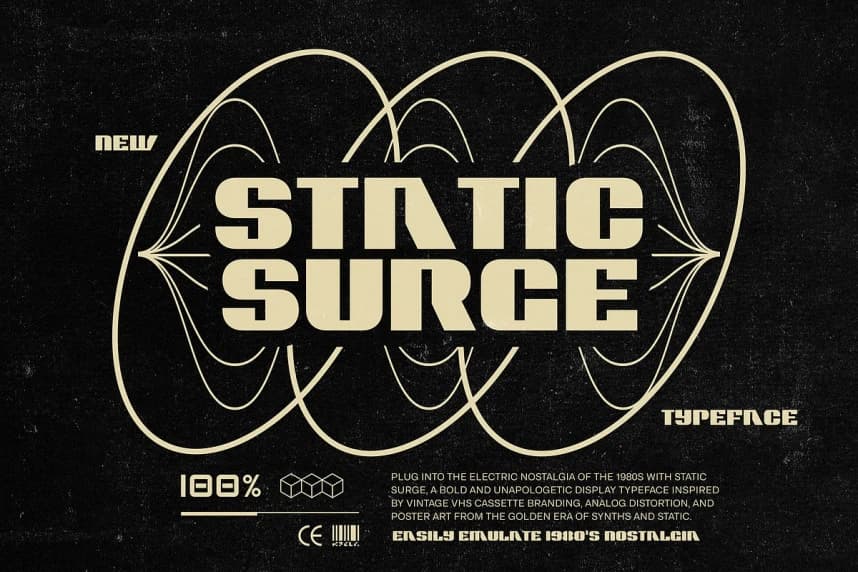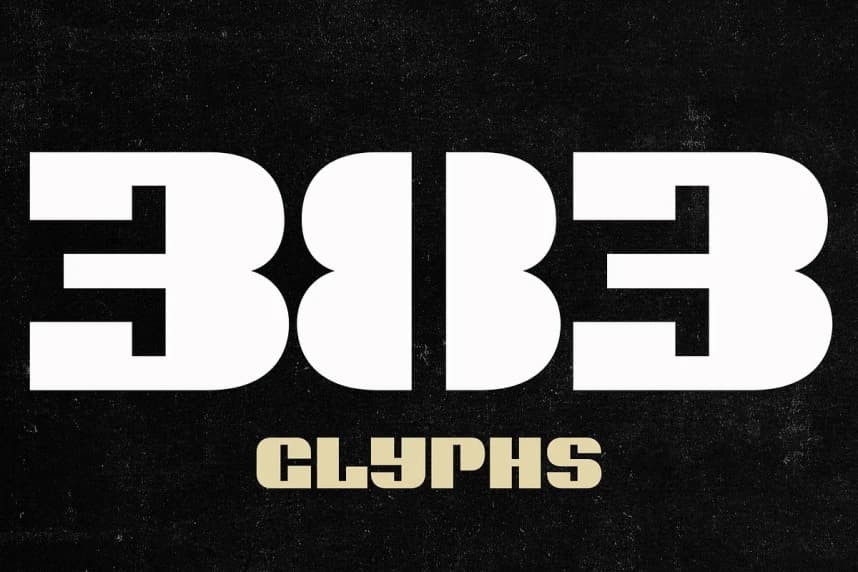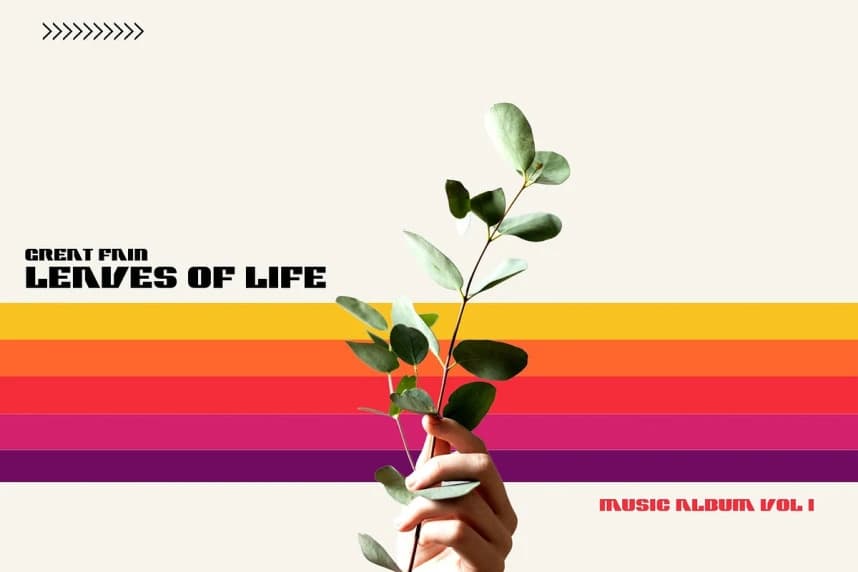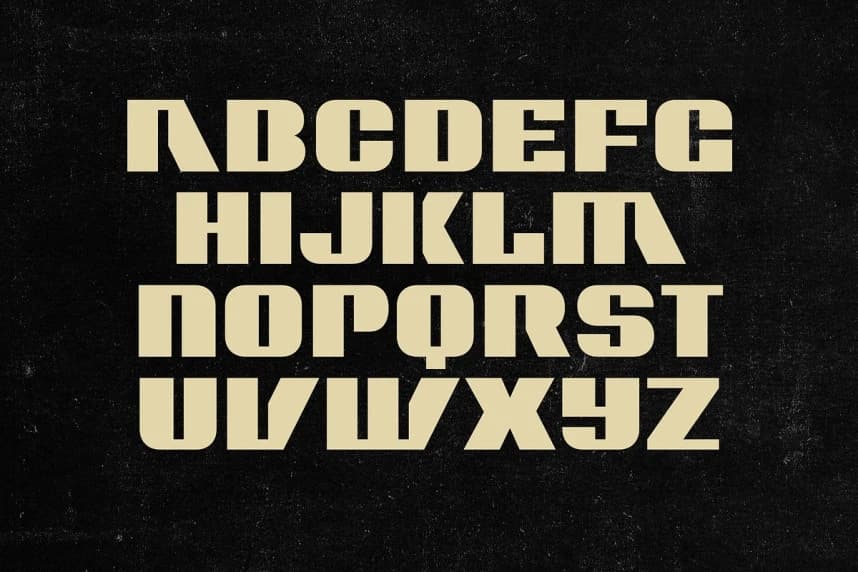
Static Surge Font
Static Surge Font, a bold and unapologetic display typeface inspired by vintage VHS cassette branding, analog distortion, and poster art from the golden era of synths and static. With sharp edges, strong lines, and just the right amount of retro grit